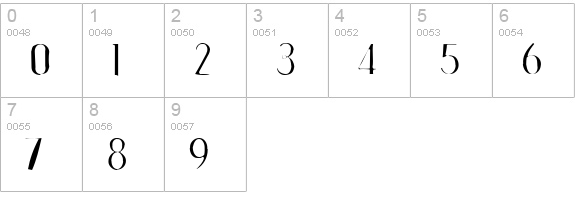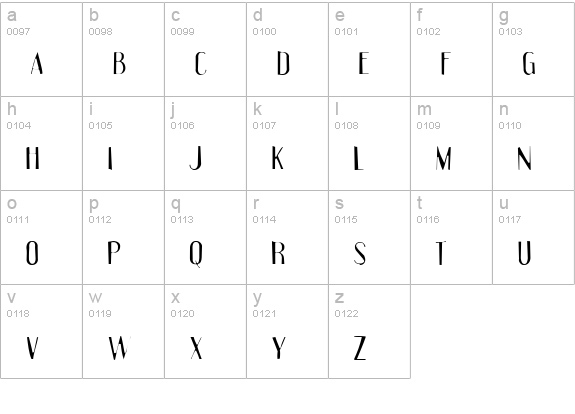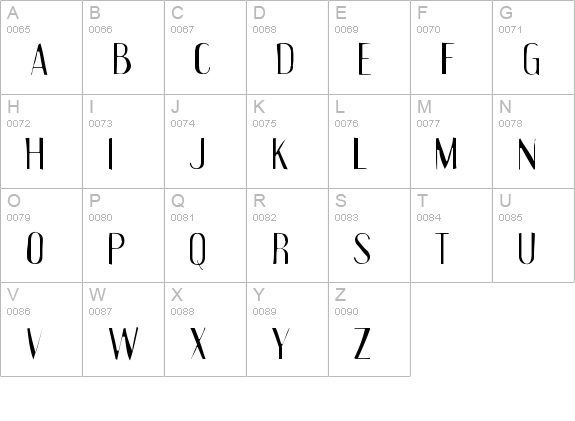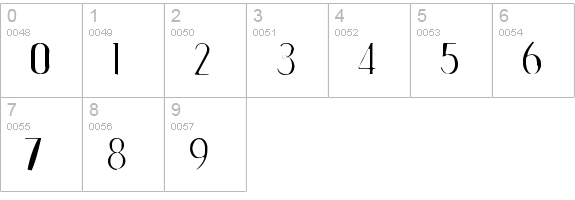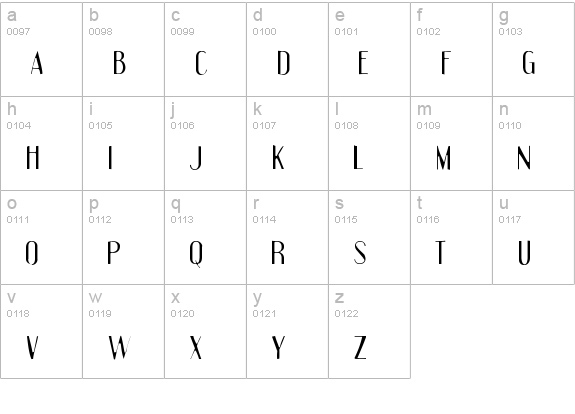
Engebrechtre Gaunt Font Details
Engebrechtre Gaunt is an elegant and sophisticated font that exudes a timeless charm and classic appeal. With its intricate details and graceful curves, this font is perfect for adding a touch of luxury and sophistication to your projects. The Engebrechtre Gaunt font is both versatile and stylish, making it ideal for a wide range of design applications, from invitations and logos to branding and packaging. The best part? Engebrechtre Gaunt is available for free download at FontsMarket.com, allowing you to easily access this beautiful font and incorporate it into your designs without any cost. Whether you're working on a personal project or a professional endeavor, Engebrechtre Gaunt is sure to elevate your work and make a lasting impression. Download this exquisite font today and add a touch of elegance to your designs.